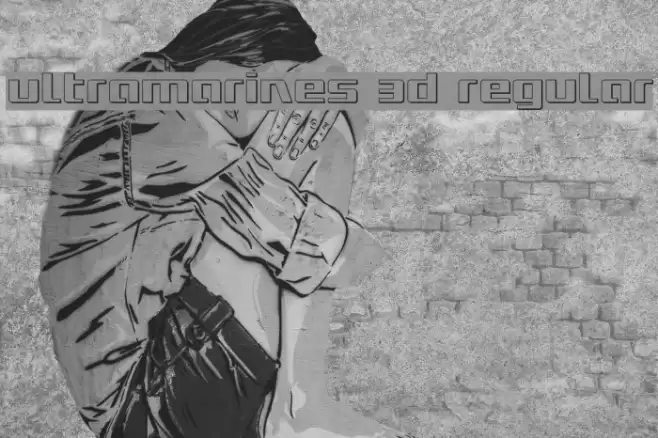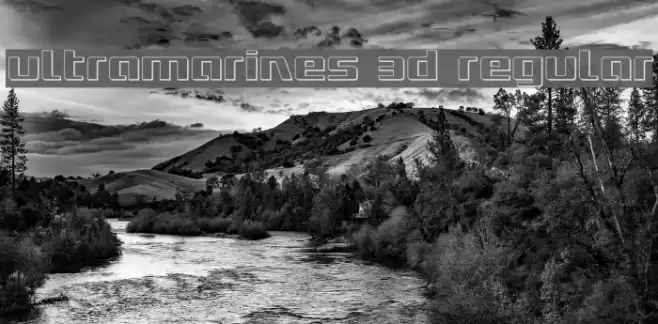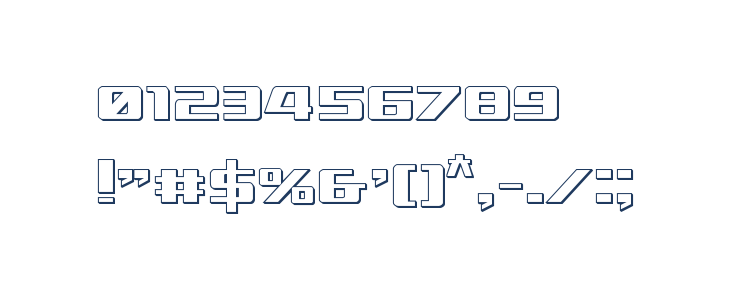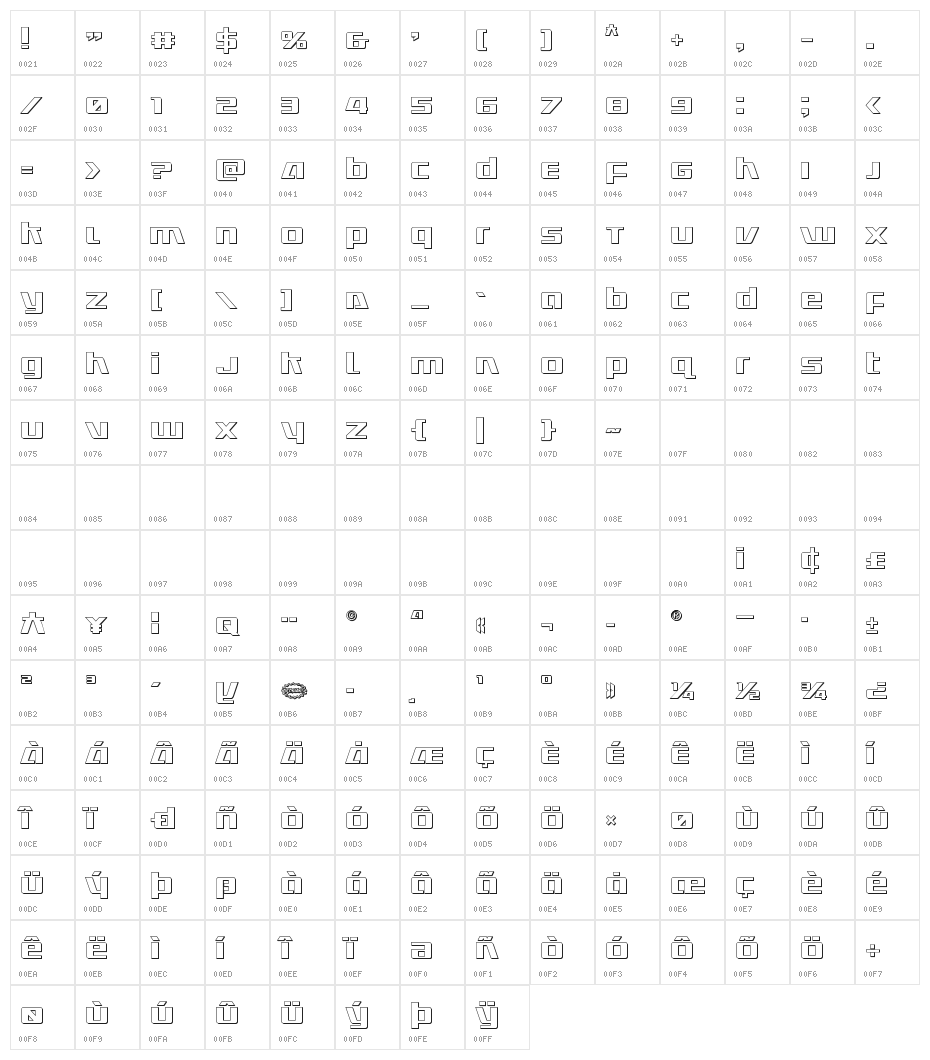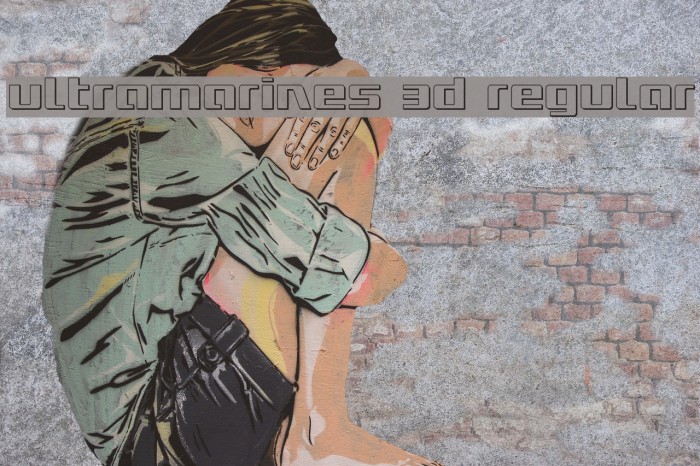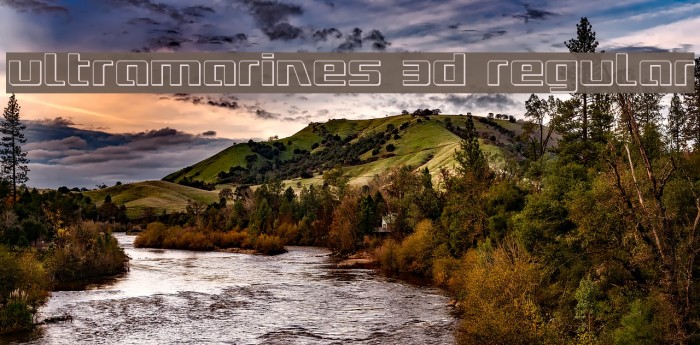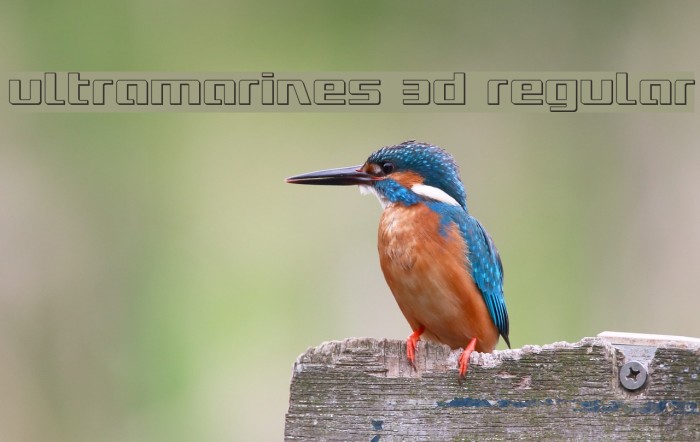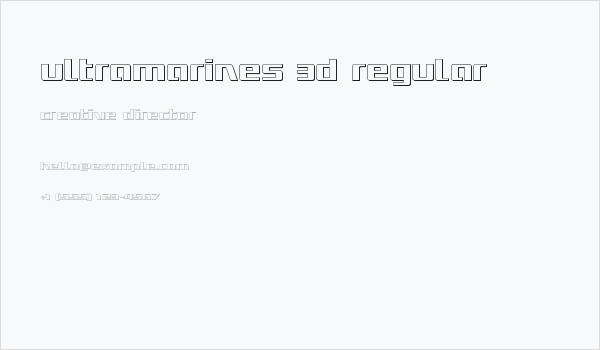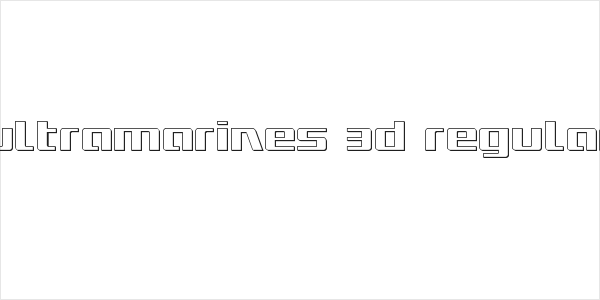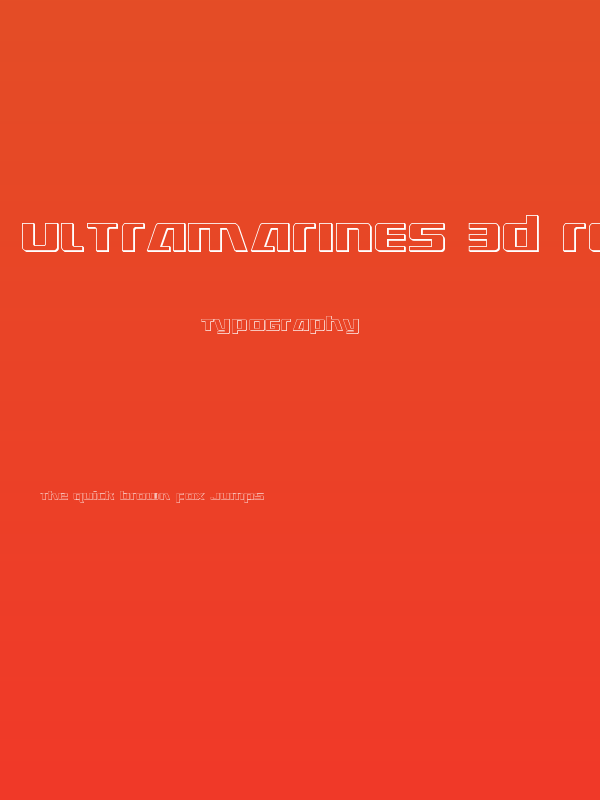
Ultramarines 3D Regular Font
Ultramarines 3D Regular Description
This font features a bold, geometric design with a three-dimensional effect. The characters are outlined, giving them a futuristic and digital appearance. The uppercase and lowercase letters maintain a consistent style, with sharp angles and clean lines. The numbers and special characters follow the same design principles, ensuring uniformity across all glyphs. This font's unique style makes it stand out, perfect for projects that require a modern and tech-savvy look.
A bold, geometric font with a 3D outline effect, ideal for modern designs from Uncategorized fonts.
- Proposed Projects: Ideal for digital media, video game titles, tech-related branding, and futuristic posters.